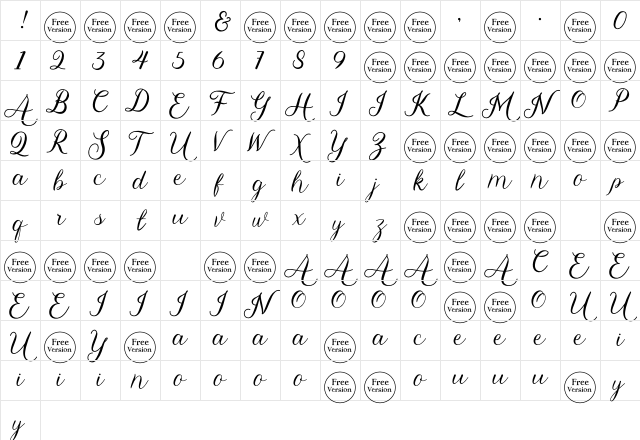
Abilane Free Trial Regular
Foundry: typefactory
Designer: typefactory
Design Context for Abilane Free Trial
Abilane Free Trial is a composed and adaptable typeface that performs quietly and consistently across a wide range of design contexts.